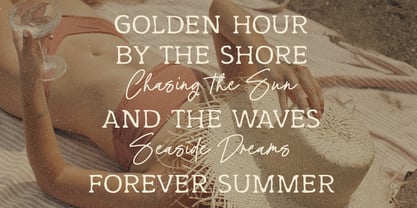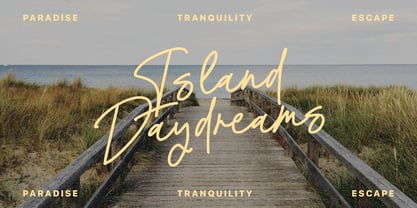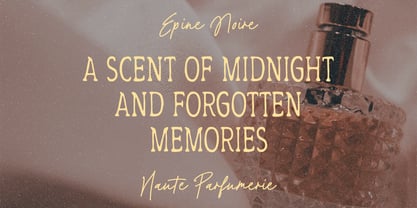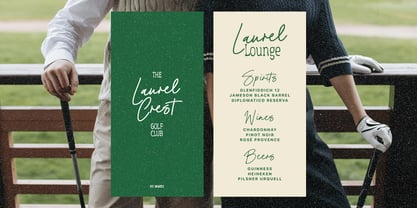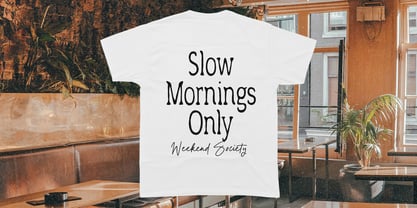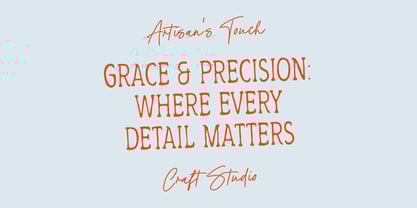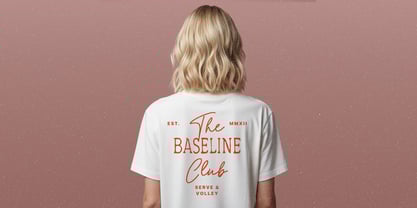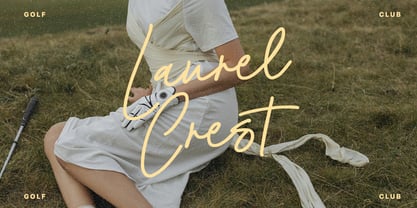
Melodie Lointaine
by Supfonts
The Melodie Lointaine Font Family was designed by Dmitrii Chirkov and published by Supfonts. Melodie Lointaine contains 3 styles and family package options. More about this family
Melodie Lointaine is a charming vintage-inspired font trio that blends elegance and playfulness. It includes a bold serif, a soft low-contrast serif, and a flowing script — perfect for creating timeless logos, packaging, posters, or editorial designs. Each style pairs beautifully with the others, bringing warmth and character to your work. Includes: - Multilingual support
Designers: Dmitrii Chirkov
Foundry: Supfonts